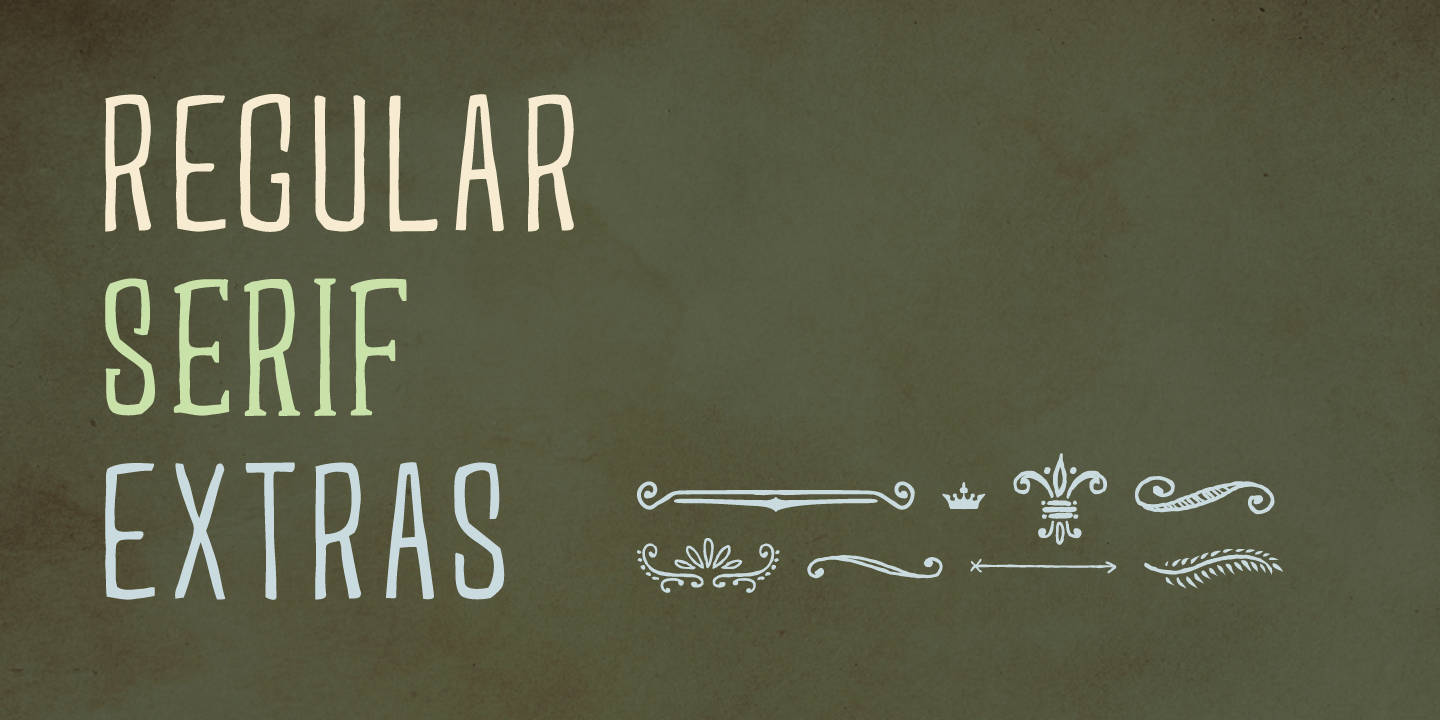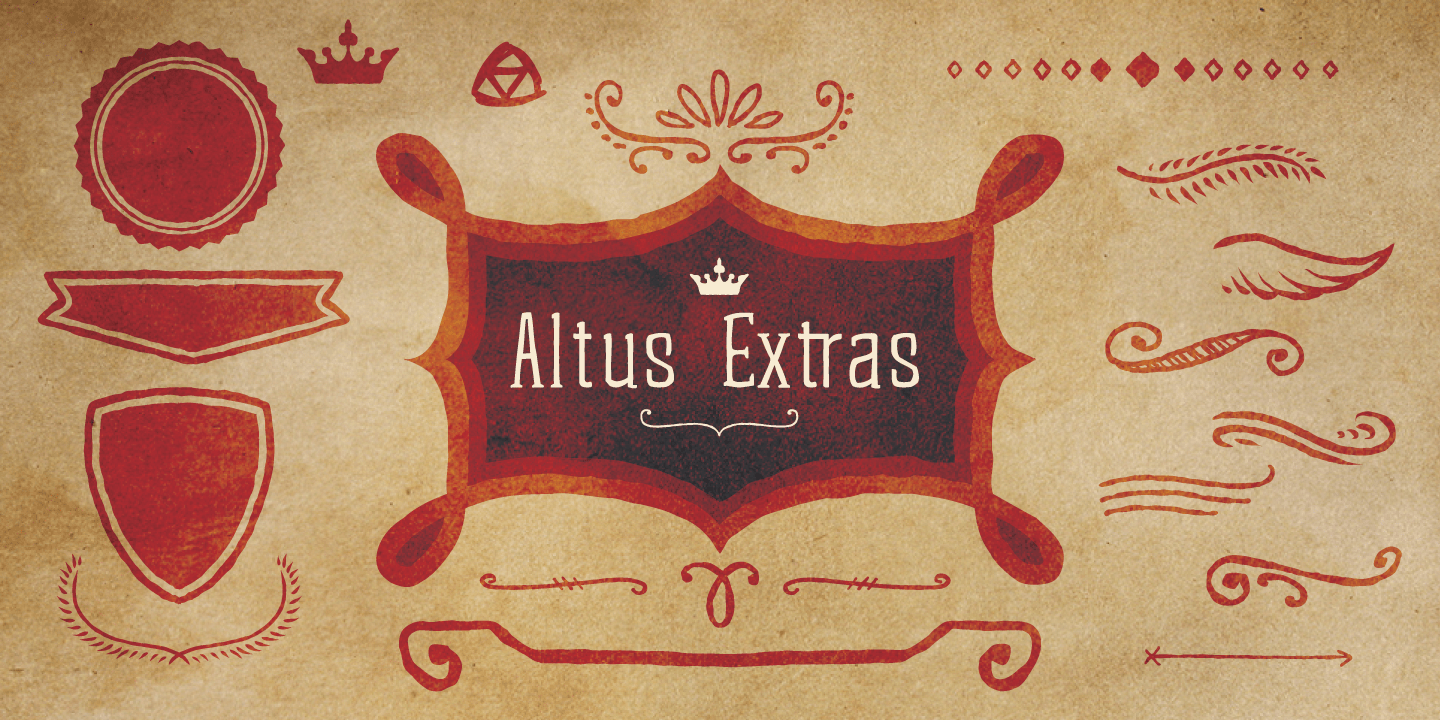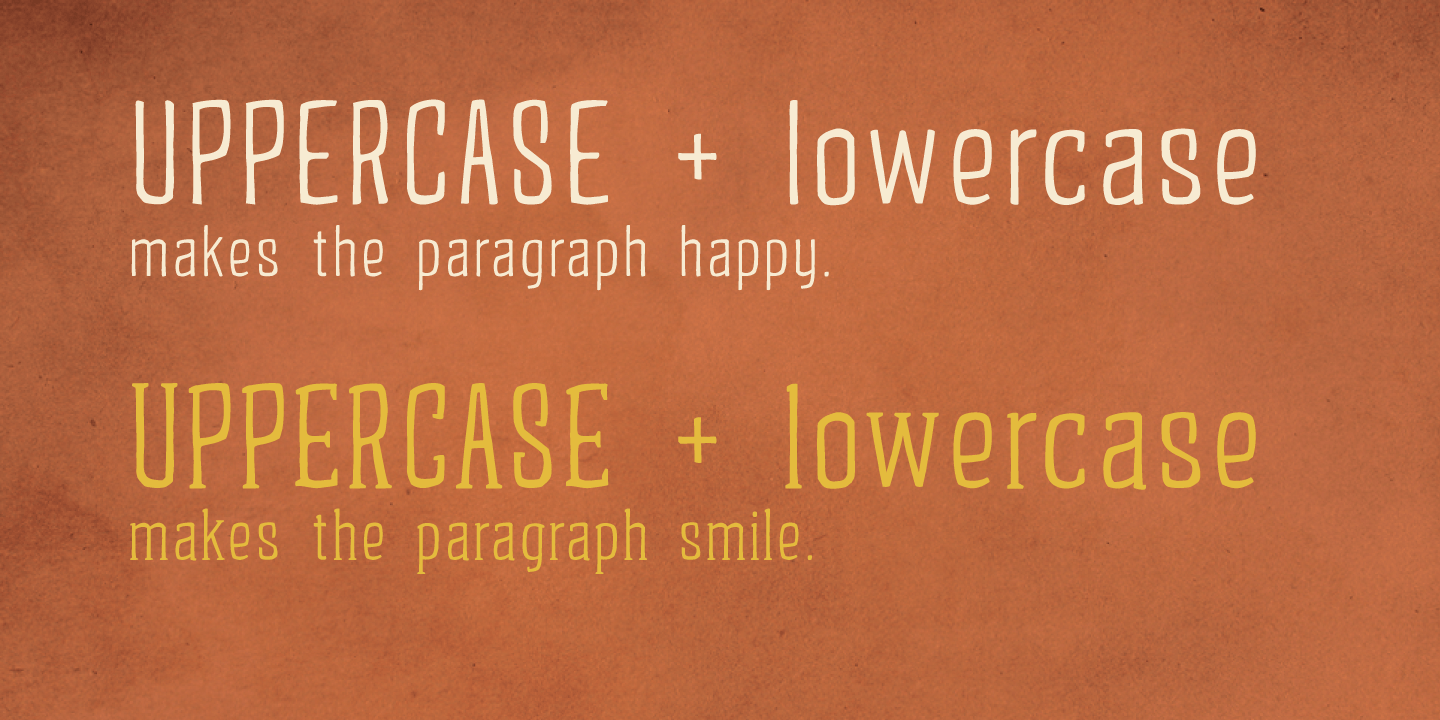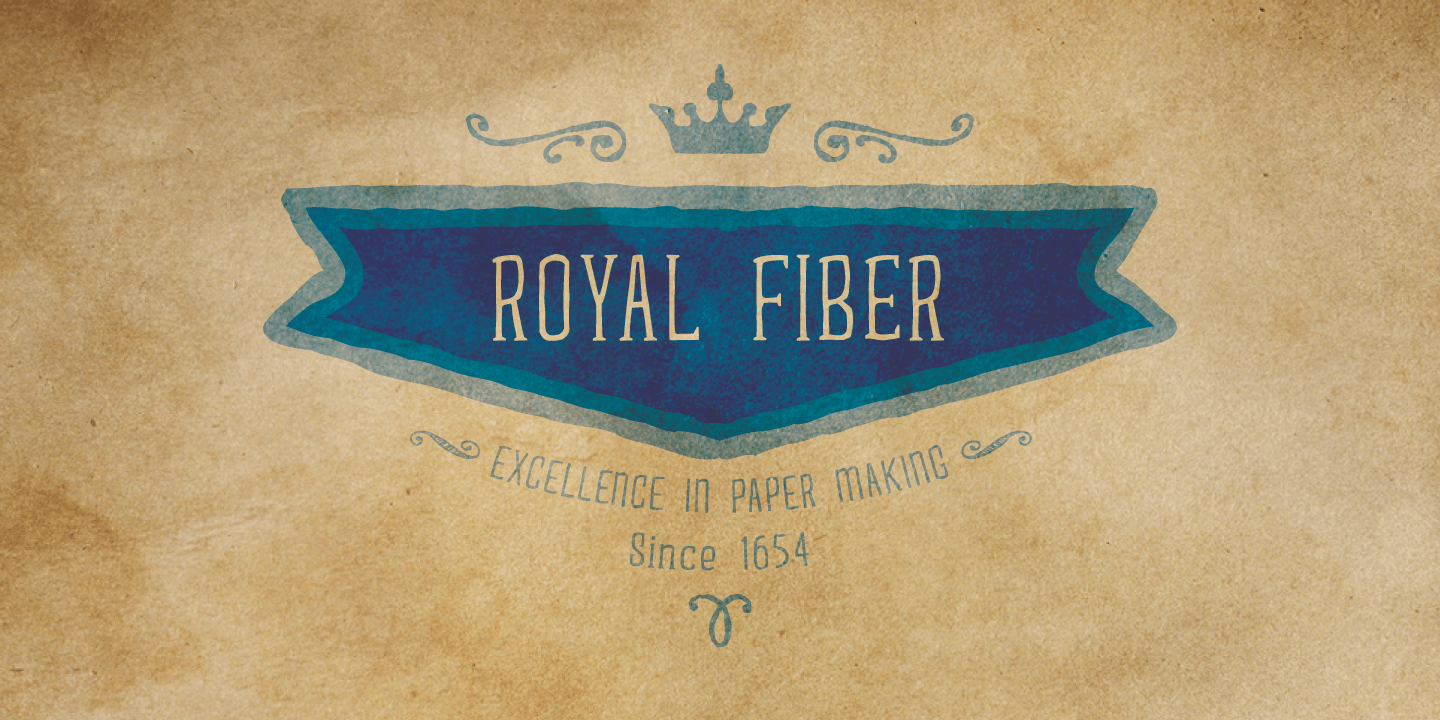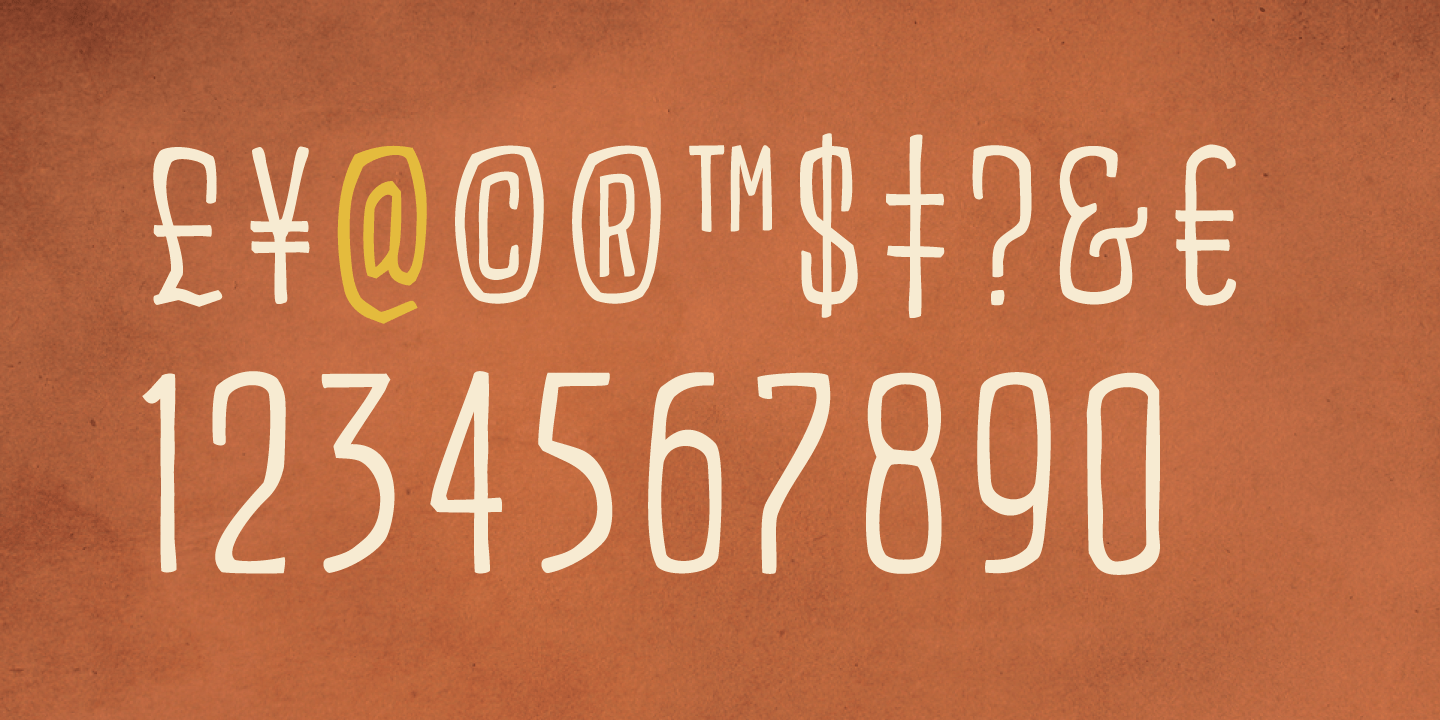
Altus
Font Family by Albatross
Altus is a legible display family with both a sans-serif and serif version, as well as unique ornaments and extras Altus is playfully hand drawn, but legible enough to be used as text It works well with others, and has both uppercase and lowercase The uppercase has a hint of a unicase flavor for a little extra playfulness Opentype features include standard ligatures and discretionary ligatures